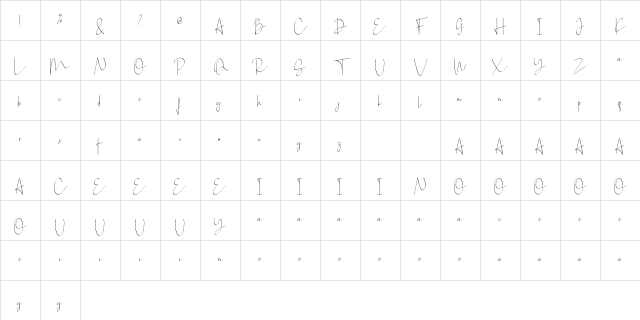
Saint Hilton is a composed and adaptable typeface that performs quietly and consistently across a wide range of design contexts.
Pro Tip: Use Saint Hilton in both headline and body roles to test its range before committing to a single application.